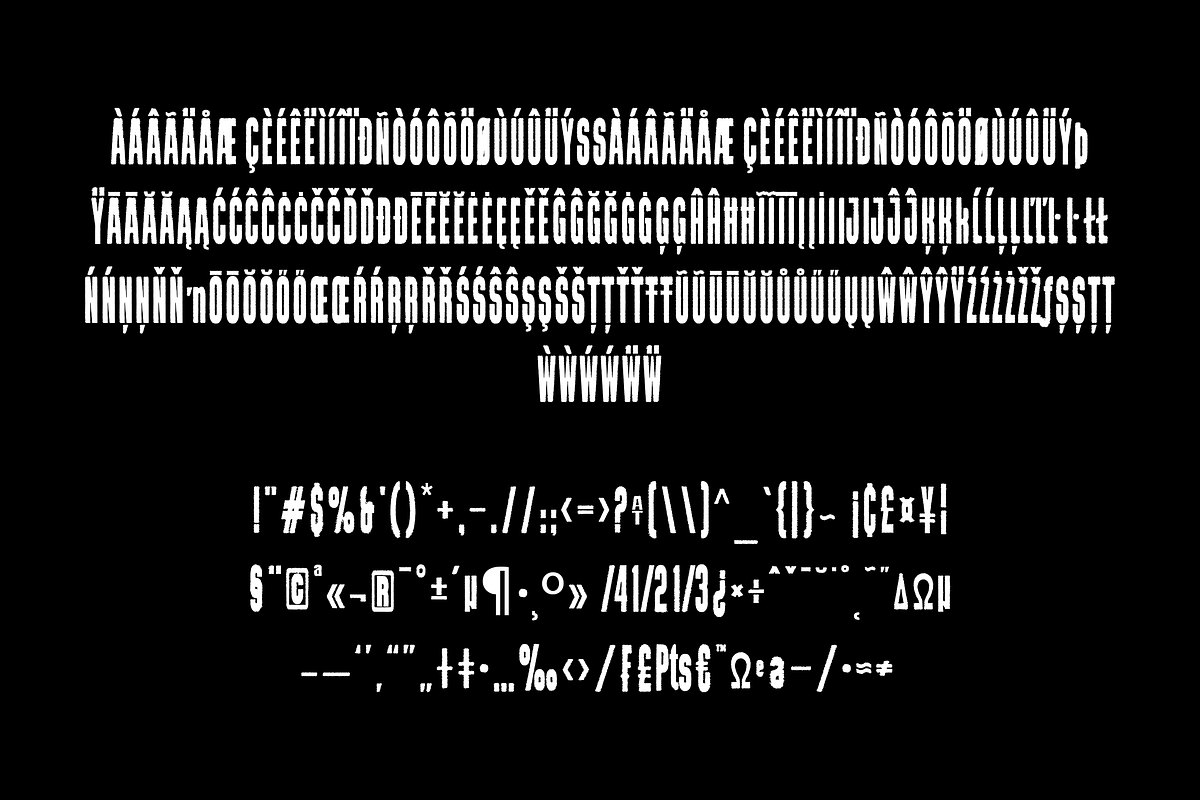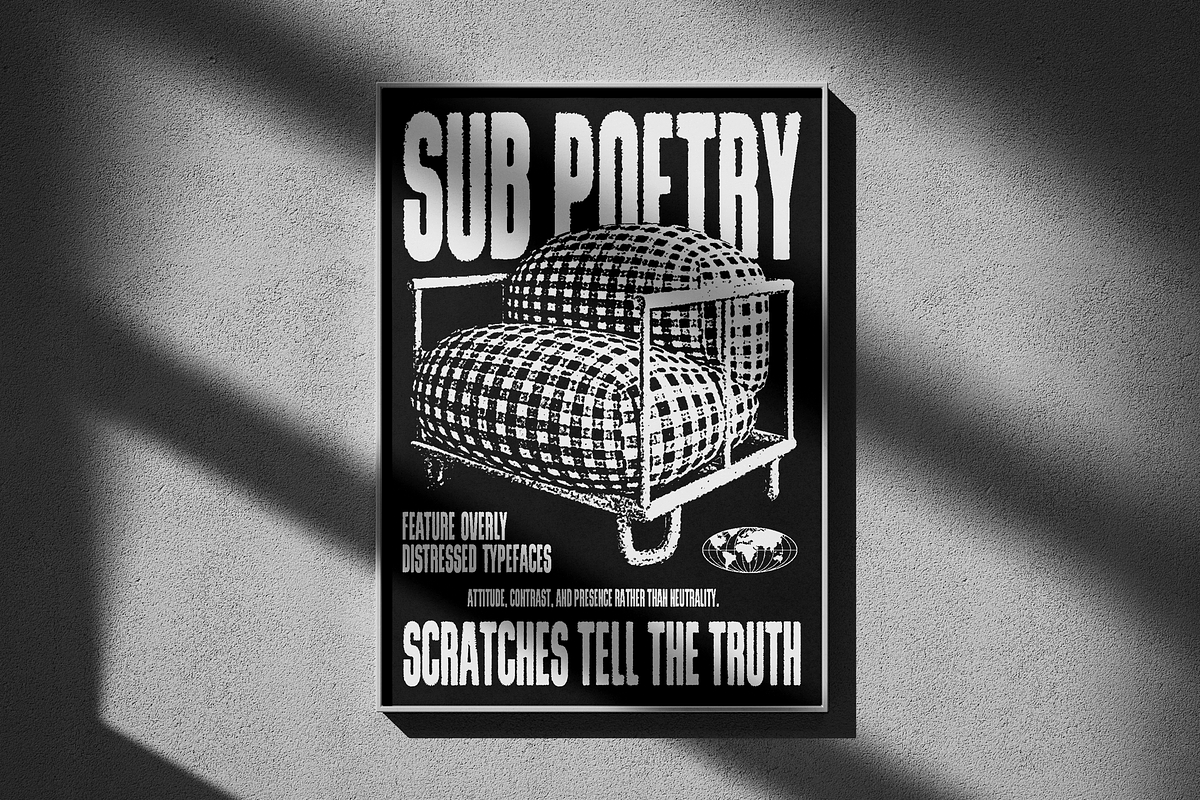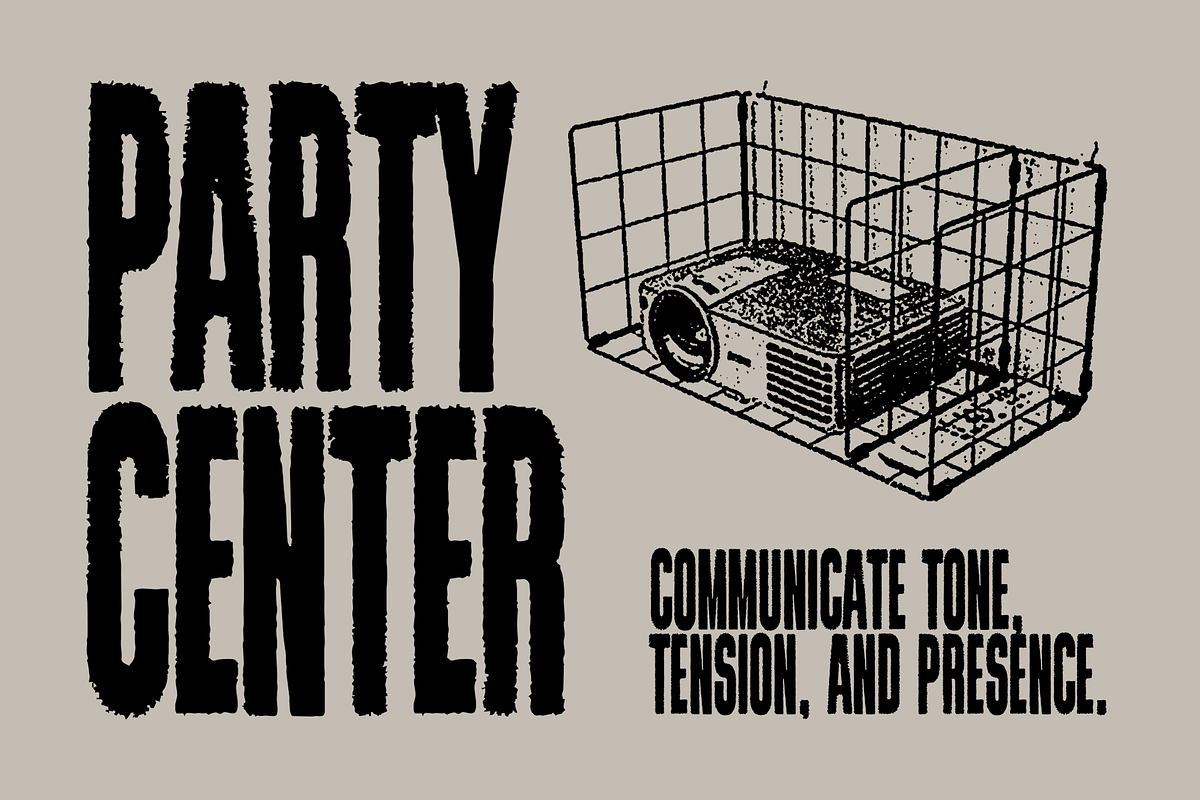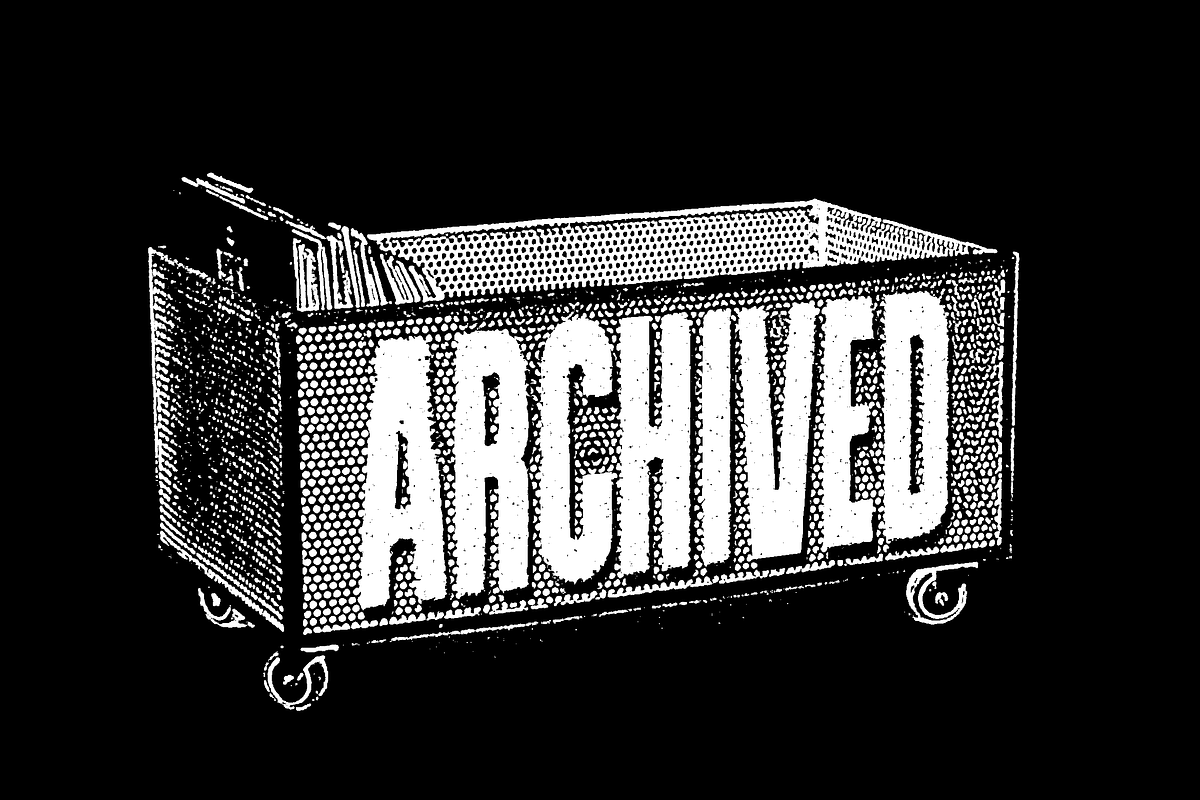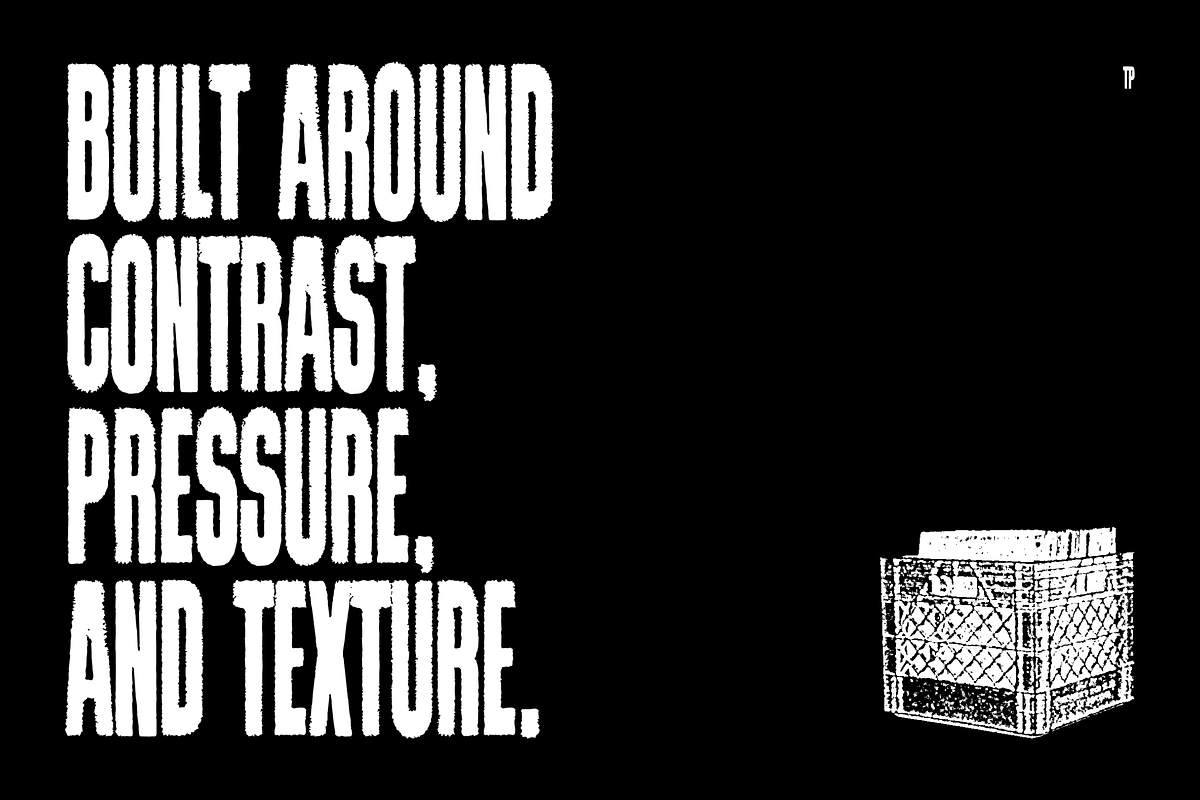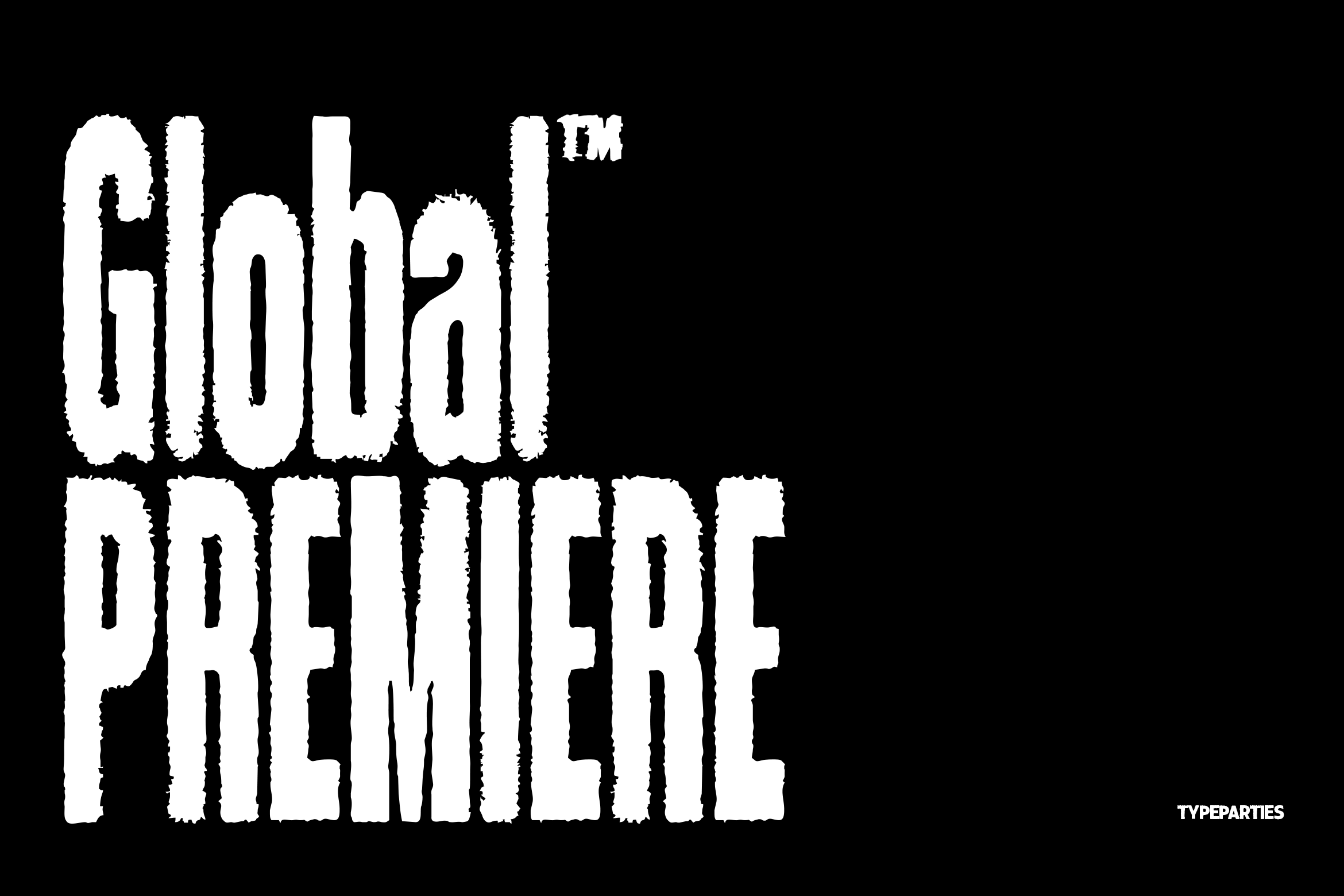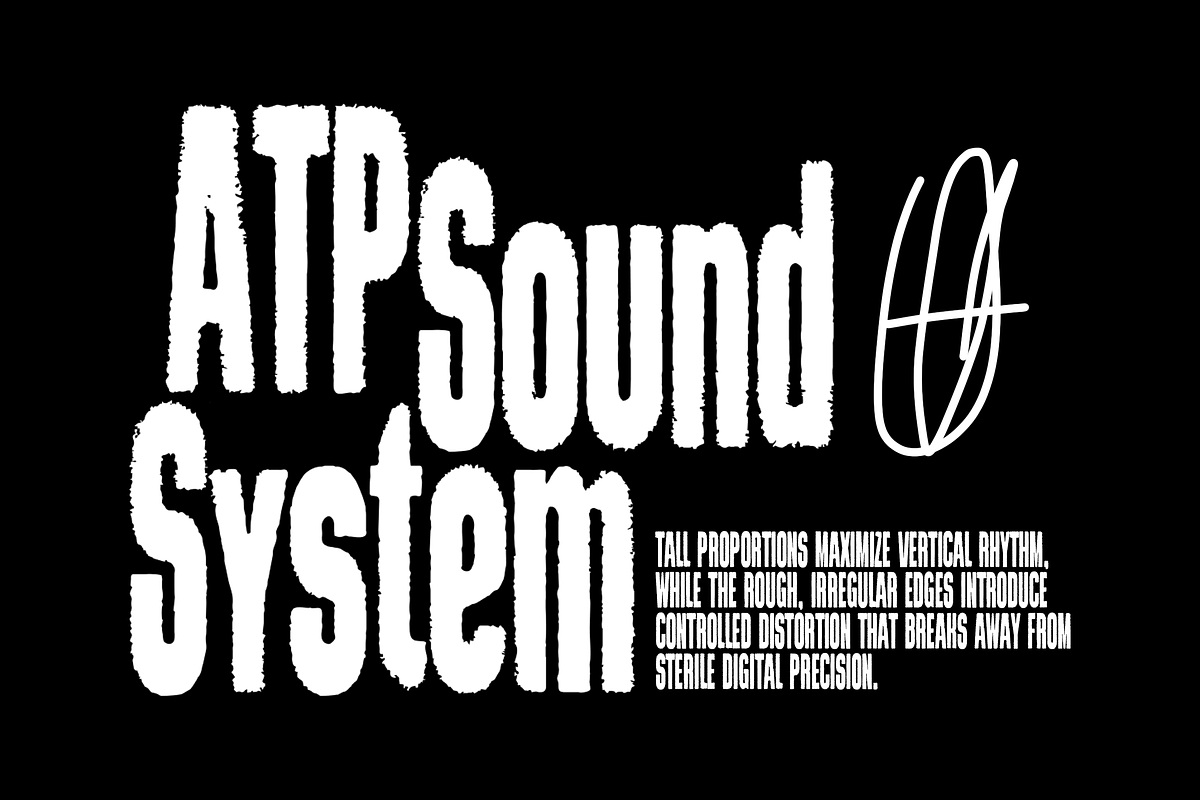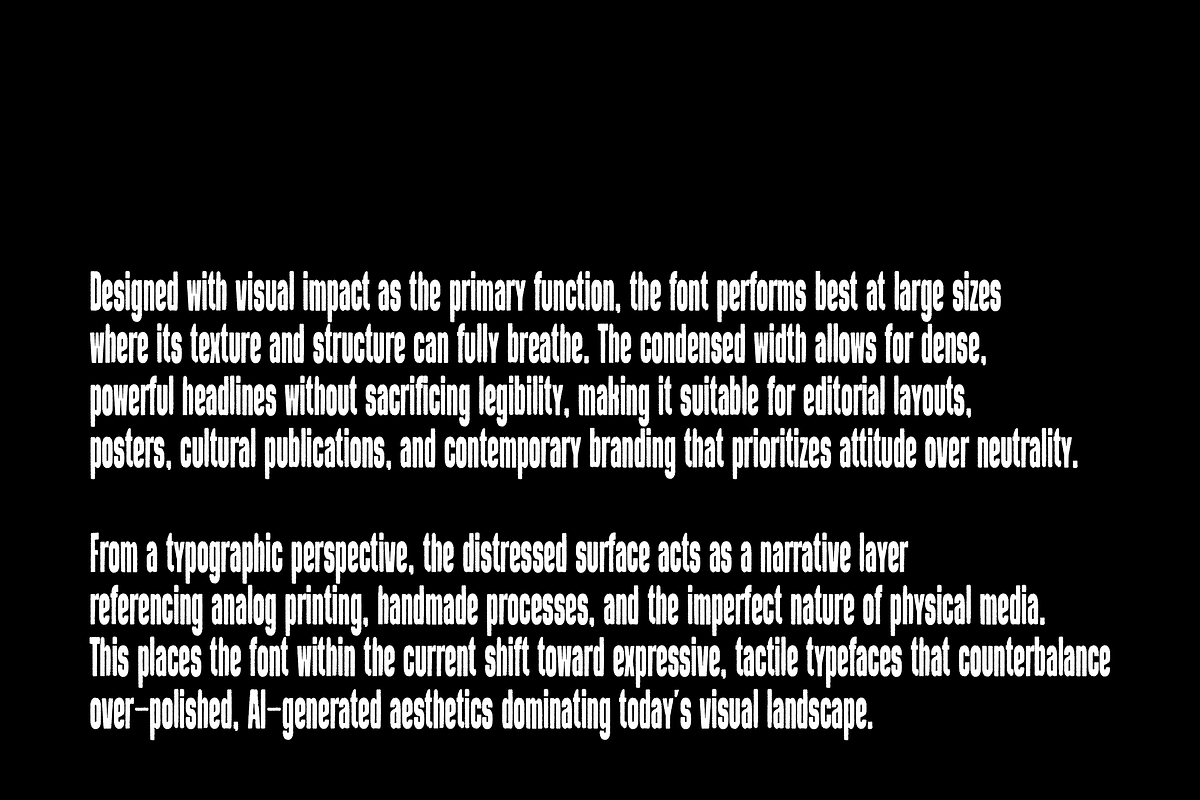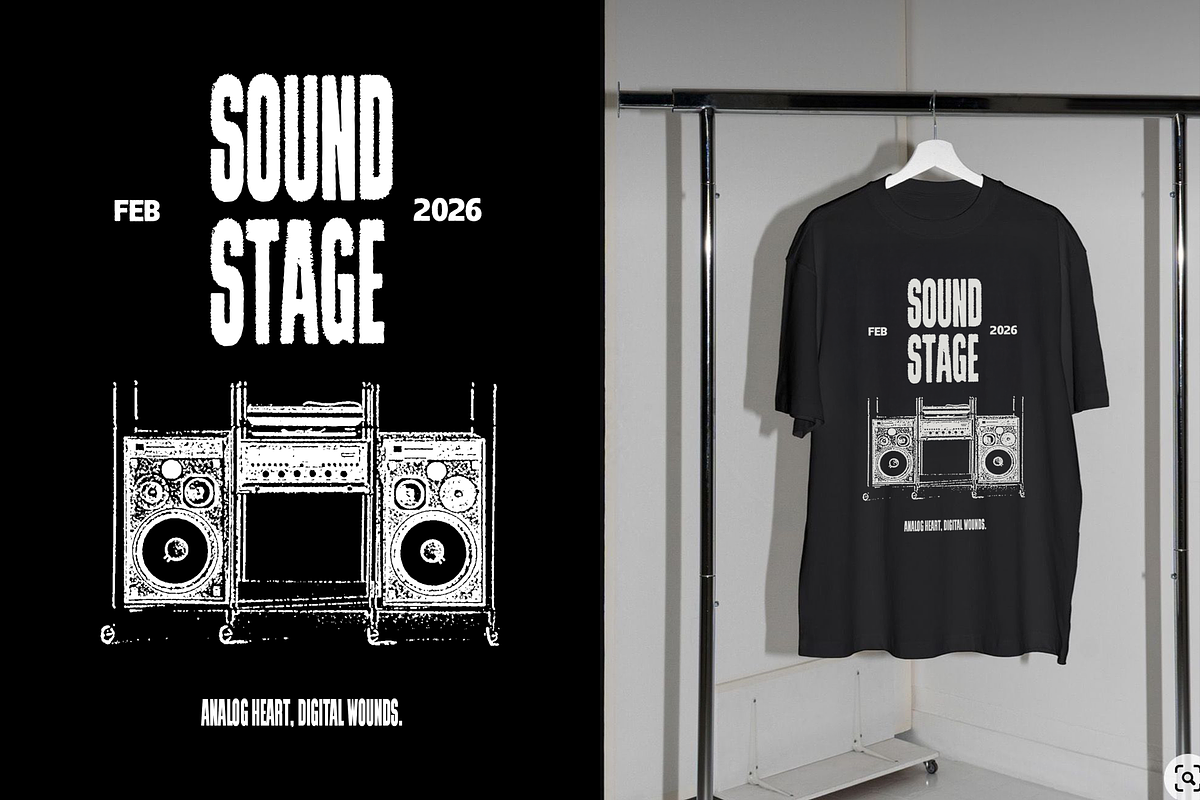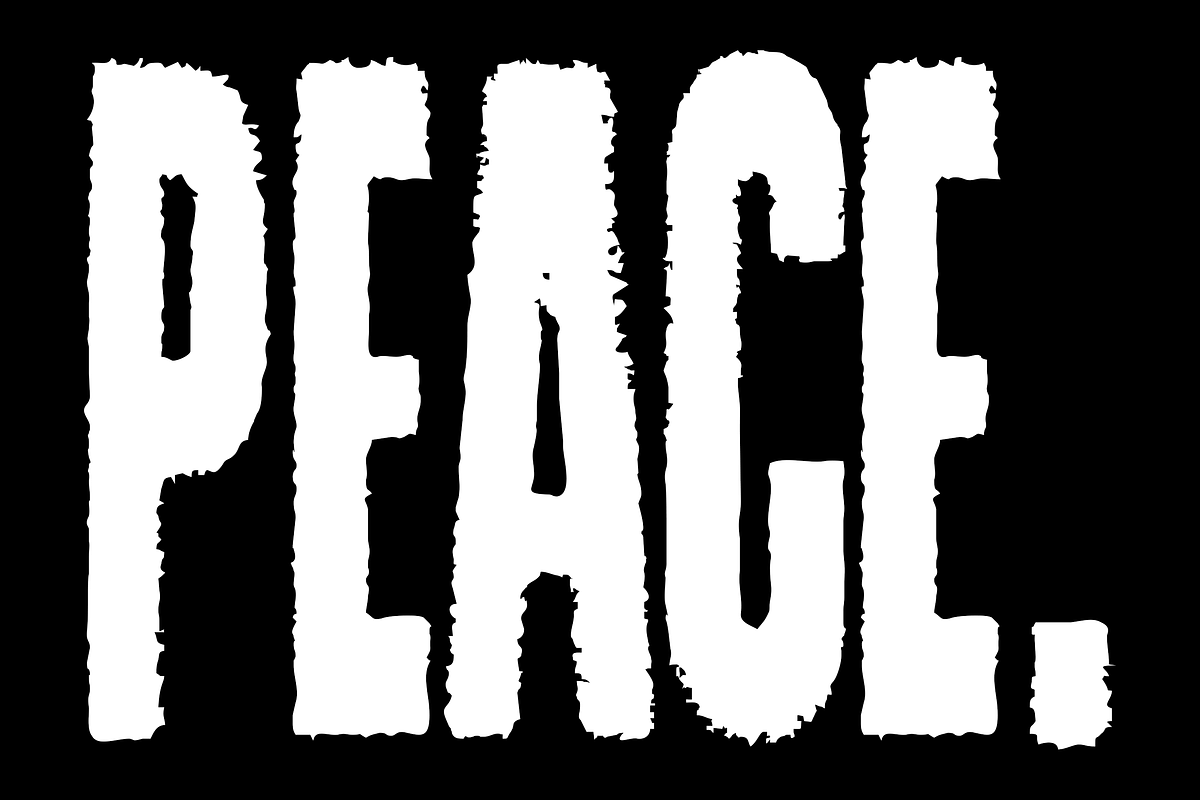
Global Premiere Rough Condensed Font
Global Premiere is a condensed display font designed for bold visual statements and high-impact headlines. Its tall proportions and narrow structure make it ideal for space-efficient layouts, while the rough, textured edges add a raw and expressive character.
Inspired by analog printing and handmade aesthetics, this font embraces imperfection as a design feature. The distressed details bring warmth and personality, helping your designs stand out in a market dominated by clean and overly polished typefaces.
Built for modern creatives, Global Premiere works best at large sizes and is perfect for projects that need attitude, contrast, and presence rather than neutrality.